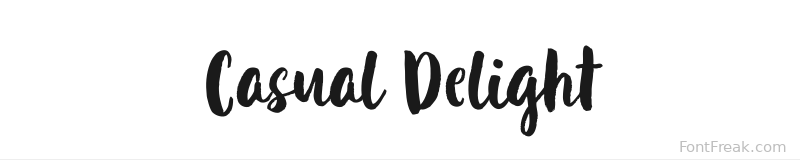
Casual Delight
About Casual Delight
Casual Delight by BLKBK Fonts is a charming handwritten font that embodies a relaxed and friendly vibe, making it perfect for a variety of creative projects. This script-style font features smooth, flowing strokes that lend a personal touch to any design. The stroke weight is consistent, with a slight contrast that adds depth and character, while the generous spacing between letters enhances readability. Its playful curves and elegant loops create an inviting appearance that draws the eye.
The Casual Delight font is particularly well-suited for use cases such as wedding invitations, where its warm and approachable style can set a romantic tone. It also shines in designing restaurant menus, where it can evoke a casual dining atmosphere. Additionally, this font is ideal for crafting posters for local events or community gatherings, as it conveys a sense of friendliness and accessibility. Small business owners can leverage Casual Delight in their branding materials, such as logos and promotional flyers, to create a welcoming image that resonates with their target audience.
What truly sets the Casual Delight font apart is its ability to combine elegance with informality, making it a delightful choice for designs that aim to connect with their audience on a personal level. Whether you're creating a heartfelt invitation or a vibrant advertisement, the Casual Delight font free download offers an opportunity to infuse your work with a sense of joy and warmth that is both memorable and engaging.